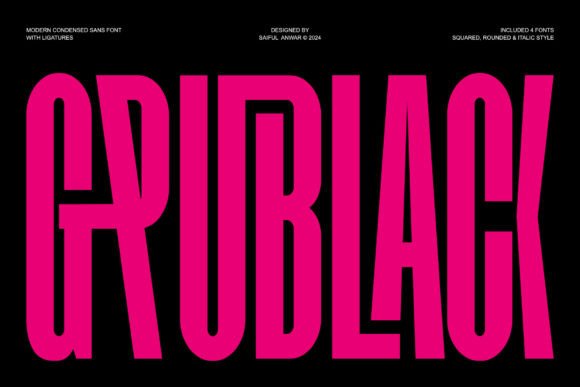
Introducing Grublack: A Modern Condensed Sans Font of Exceptional Typographic Excellence
In the world of typography, a font can make all the difference in the visual identity of a design project. With the vast array of fonts available, it can be challenging to find one that stands out from the crowd. However, Grublack, a sleek and modern condensed sans font, is here to revolutionize the way we approach typography. Its contemporary design epitomizes elegance and functionality, making it the perfect choice for projects demanding a refined and sleek visual identity.
The Unique Features of Grublack
What truly sets Grublack apart is its vast collection of expertly designed ligatures. Ligatures are special characters that combine two or more letters into a single glyph, creating a seamless connection between them. With a wealth of ligatures at your disposal, Grublack allows you to create fluid and artistic typography that captivates viewers. These ligatures add sophistication, elevating your designs and making them more visually appealing.
Grublack’s ligatures are meticulously crafted to ensure that they are not only aesthetically pleasing but also highly functional. They can be used in a variety of design applications, including editorial layouts, branding materials, advertising campaigns, and digital interfaces. Whether you’re aiming for a minimalistic, high-tech, or cutting-edge look, Grublack provides the ideal canvas for your creativity.
The Versatility of Grublack
Grublack is a versatile font suitable for a myriad of design applications. Its modern condensed sans style exudes professionalism and contemporary aesthetics, making it perfect for projects that require a refined and sleek visual identity. The font’s versatility is evident in its ability to be used in various design contexts, from editorial layouts to digital interfaces.
Grublack’s modern condensed form, coupled with a plethora of ligatures, empowers you to create captivating and memorable designs that stand out from the crowd. Its elegant and functional design makes it an excellent choice for designers who want to create visually stunning typography that engages and captivates their audience.
The Benefits of Using Grublack
There are several benefits to using Grublack in your design projects. Firstly, its unique ligatures allow you to create seamless connections between characters, infusing your typography with a sense of fluidity and artistry. This feature is particularly useful for designers who want to create visually stunning typography that stands out from the crowd.
Secondly, Grublack’s modern condensed sans style makes it perfect for projects that require a refined and sleek visual identity. Its professional and contemporary aesthetics ensure that your designs look modern and sophisticated, making it an excellent choice for designers who want to create high-end designs.
Lastly, Grublack’s versatility makes it suitable for a wide range of design applications. Whether you’re working on an editorial layout, branding material, advertising campaign, or digital interface, Grublack provides the ideal canvas for your creativity.
To get the most out of Grublack, it’s essential to experiment with its various features, including its ligatures and typographic styles. By doing so, you can create visually stunning typography that showcases the font’s unique characteristics.
Additionally, Grublack can be used in conjunction with other design elements, such as images and graphics, to create visually appealing designs. Its versatility and flexibility make it an excellent choice for designers who want to push the boundaries of typography.
In conclusion, Grublack is a modern condensed sans font that sets a new standard in typography. Its unique features, versatility, and benefits make it an excellent choice for designers who want to create visually stunning typography that engages and captivates their audience.
Whether you’re a graphic designer, typographer, or digital artist, Grublack provides the ideal canvas for your creativity. Its modern condensed form, coupled with a plethora of ligatures, empowers you to create captivating and memorable designs that stand out from the crowd.
Key Features of Grublack
- Modern condensed sans font
- Vast collection of expertly designed ligatures
- Versatile and suitable for a wide range of design applications
- Professional and contemporary aesthetics
- Elegant and functional design
- Supports OpenType features
Design Applications of Grublack
- Editorial layouts
- Branding materials
- Advertising campaigns
- Digital interfaces
- Graphic design
- Typography